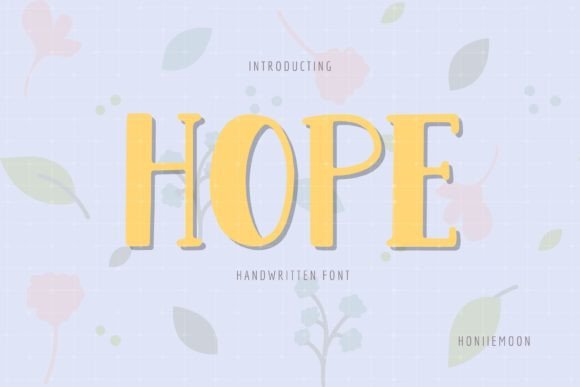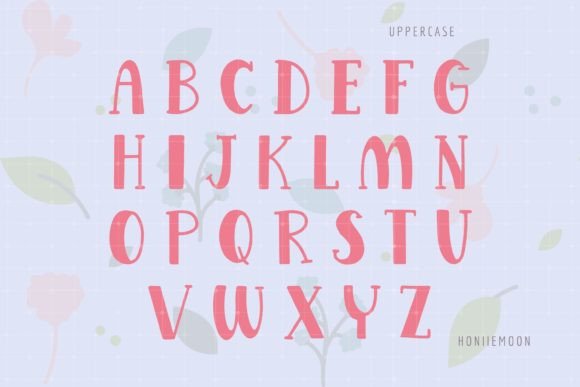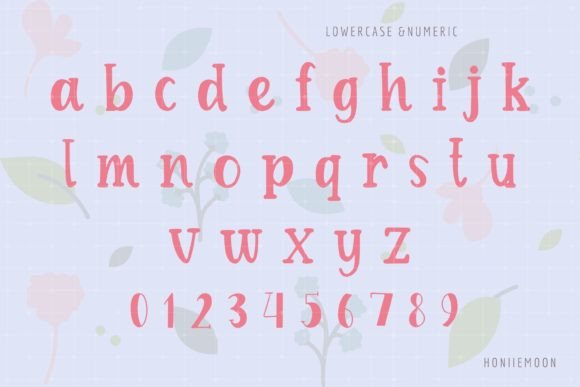
About Hope Font
“Hope” is a cool and jolly handwritten font, meticulously crafted to elevate each of your designs. With its colorful and bold characteristics, this font serves as a vibrant addition to your creative ideas, bringing them to life with a lively and dynamic touch.
The cool and jolly nature of “Hope” makes it a perfect choice for a variety of design applications. Whether you’re working on posters, invitations, social media graphics, or any other creative project, this font injects a sense of energy and playfulness, enhancing the overall appeal of your designs.
The bold strokes and vibrant personality of “Hope” contribute to its distinct and eye-catching look. This font is not just a typographic choice but a design element that adds a cheerful and lively vibe to your creative endeavors.
In summary, “Hope” is more than just a font; it’s a tool designed to enhance and enliven your designs. Its cool and jolly handwritten style, paired with bold and colorful attributes, makes it a standout choice for projects that aim to capture attention and convey a sense of joy. Let “Hope” be the font that infuses your designs with vitality and brings them to life in a bold and cheerful way.